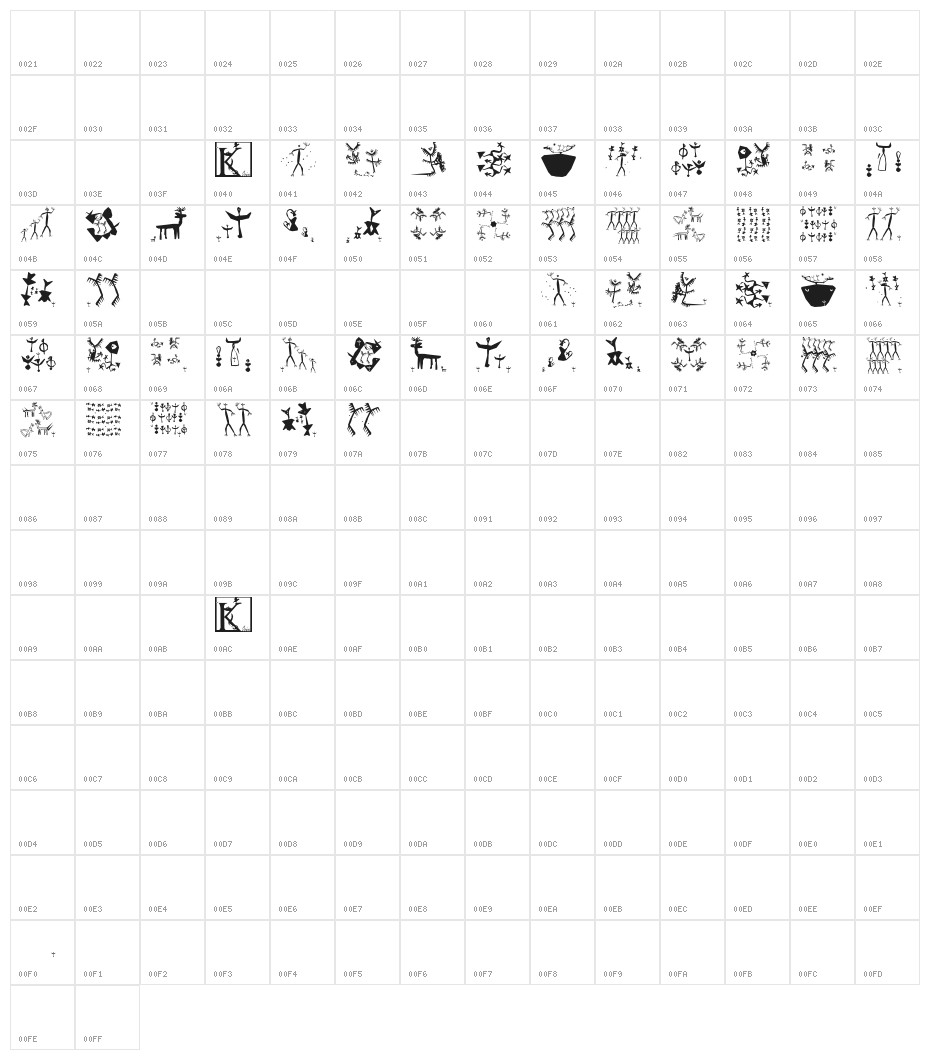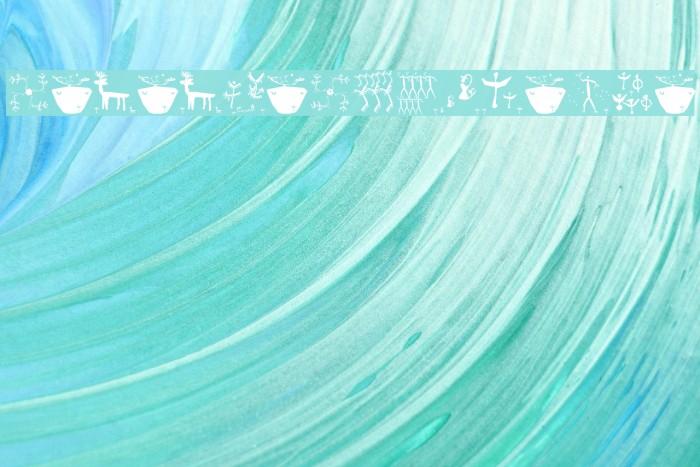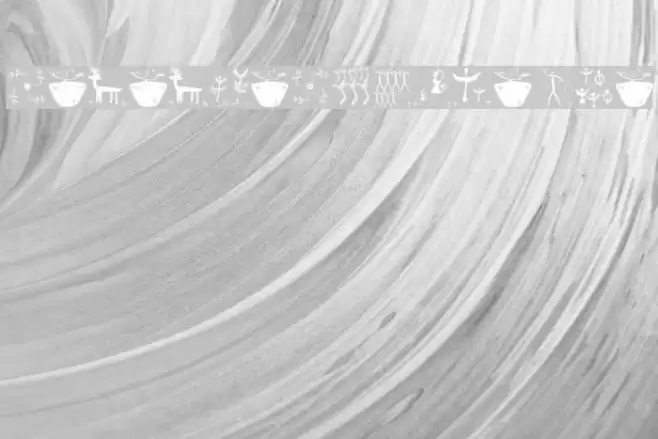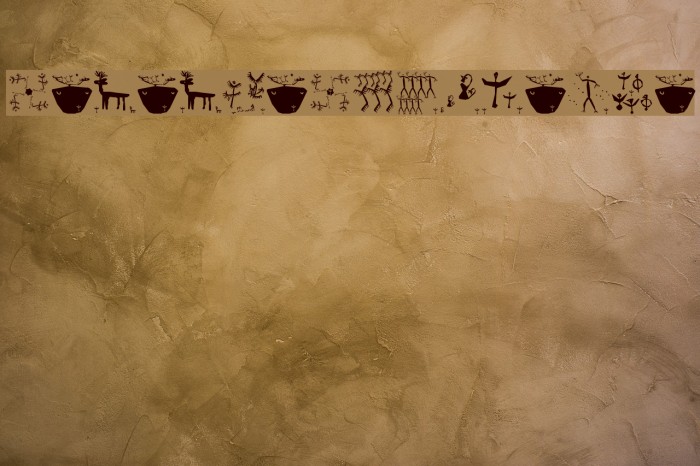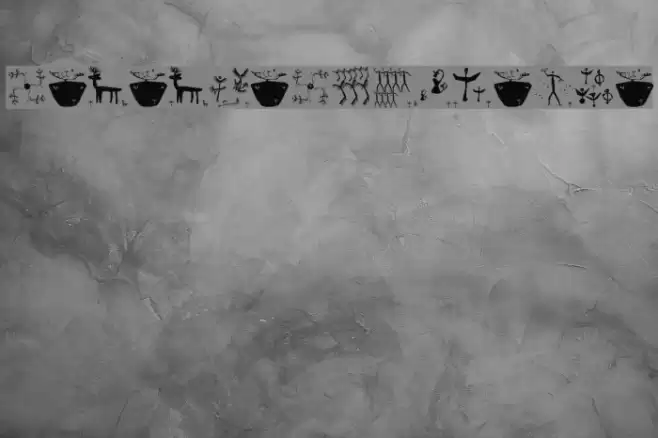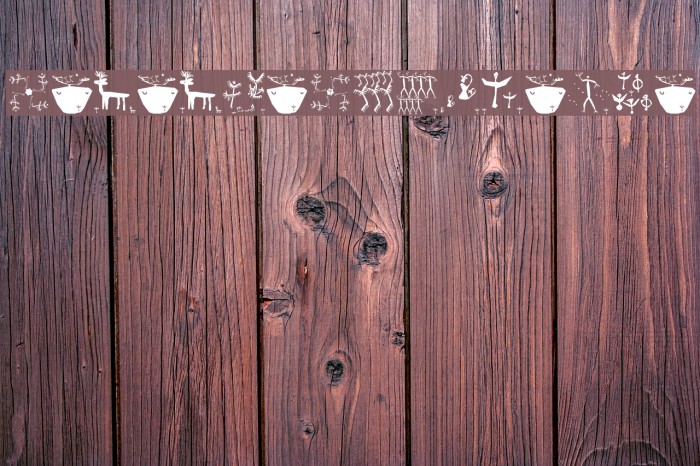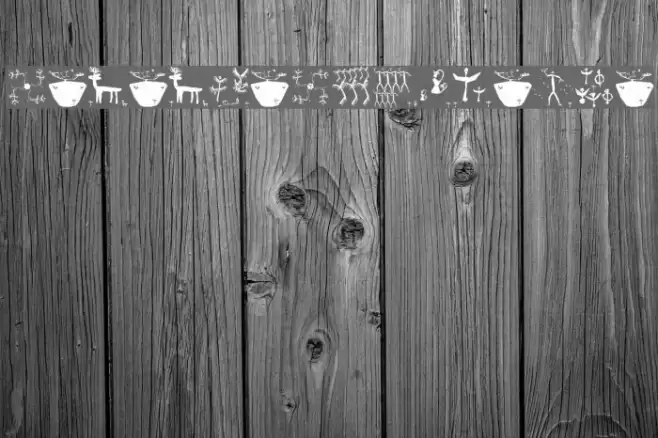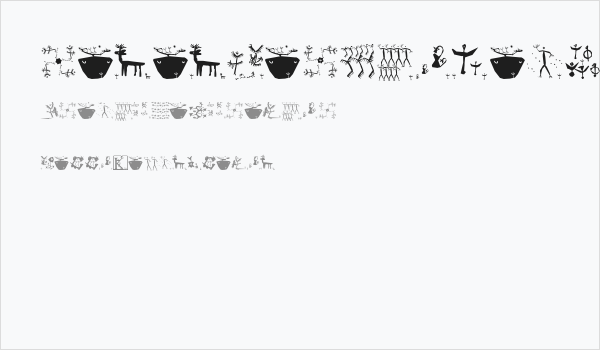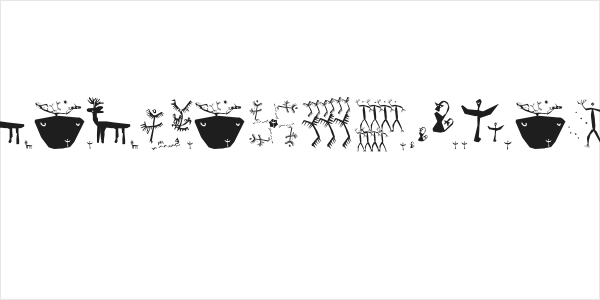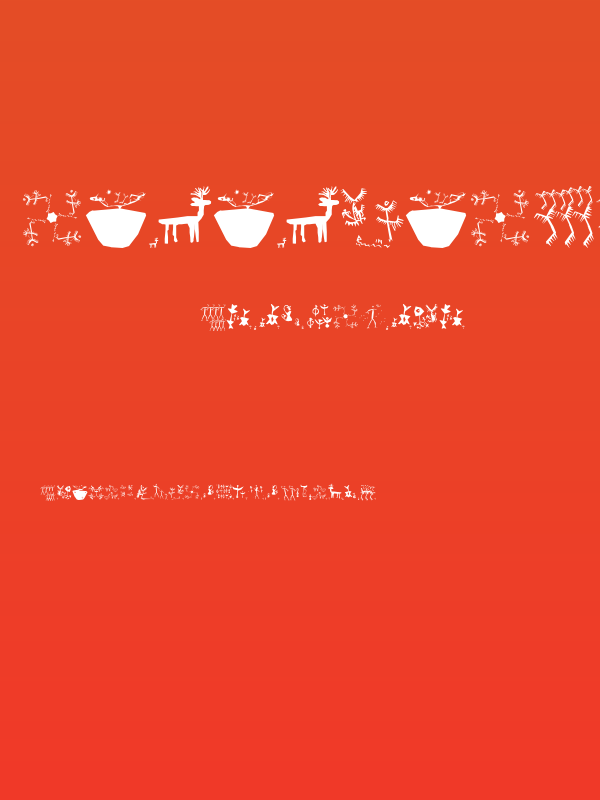
RememberStoneage Font
RememberStoneage Description
This font is a unique and artistic representation of ancient stone age symbols and figures. It features a series of pictographic characters that resemble prehistoric cave drawings, with each symbol depicting various human and animal forms, as well as abstract shapes. The design is highly decorative, capturing the essence of primitive art with its rough, hand-drawn appearance. The characters are not uniform in size or shape, adding to the authenticity and charm of the style. This font is perfect for projects that aim to evoke a sense of history, mystery, or cultural heritage, providing a visual connection to ancient times.
| Overall Style | Primitive, Artistic, Historical |
| Use Case | Logos, Artistic displays, Educational materials |
| Proposed Projects | Ideal for historical documentaries, educational materials on ancient cultures, themed event invitations, or artistic projects seeking a primitive aesthetic. |